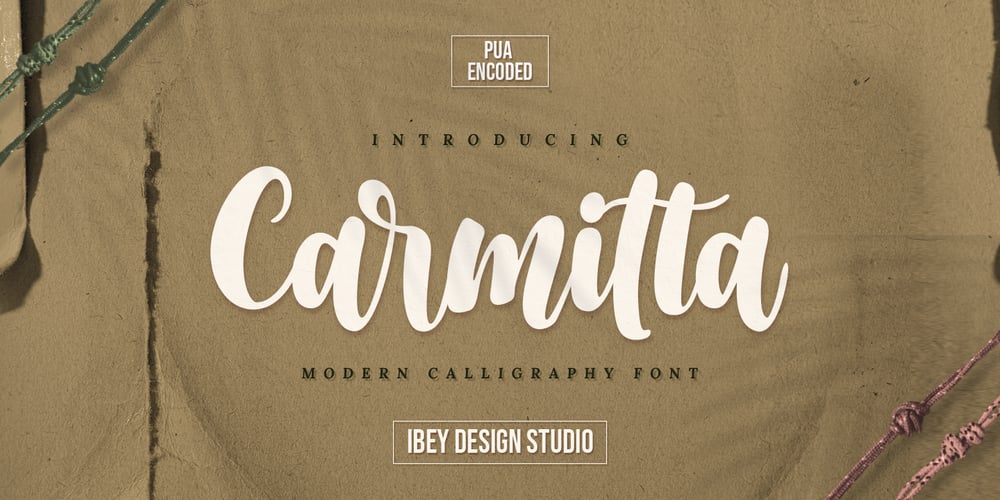
Carmitta
Carmitta font
Carmitta Font Family was designed by Ikrar Bey Khubaib and published by IbeyDesign. Carmitta contains 1 styles and family package options. Carmitta Modern Calligraphy font is a sweet and delicate handwritten font. Dainty and joyful, this font will be ideal for writing wedding invitations, cards or any other design that may need a romantic, personalized touch.